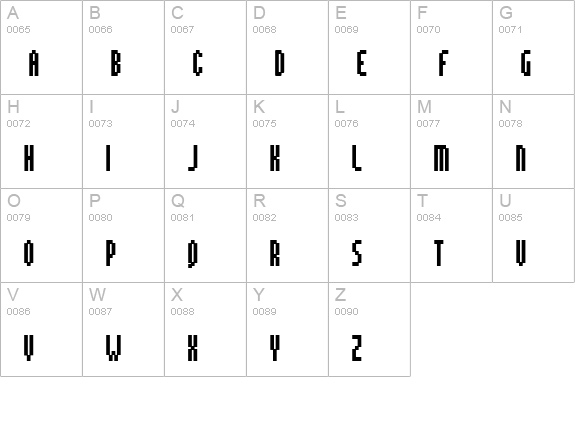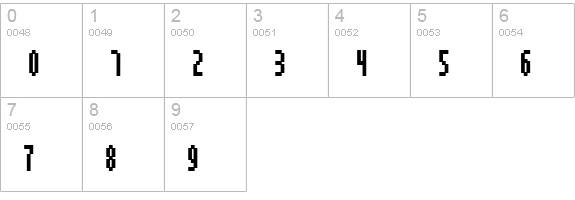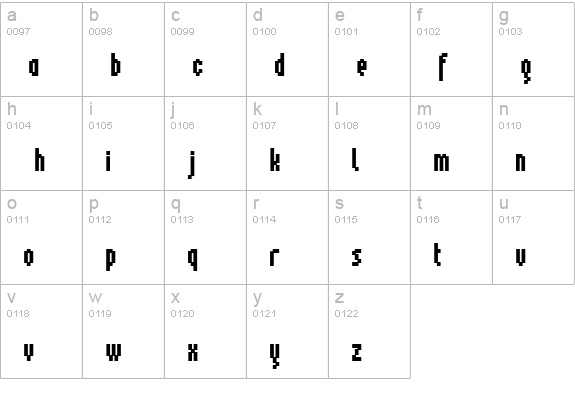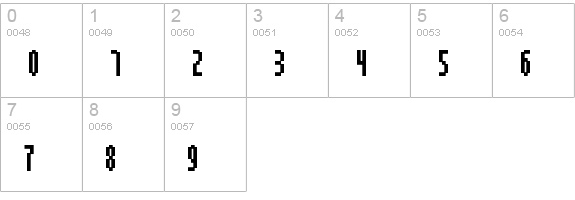
pinx Black Font Details
pinx Black is a maximum-weight, dramatic variant in the pinx typeface family \xE2\x80\x94 well suited to maximum-impact headlines, posters, and packaging.
Introducing pinx Black, a sleek and sophisticated font that combines modern aesthetics with timeless appeal. With its clean lines and bold letterforms, pinx Black exudes confidence and elegance, making it the perfect choice for a wide range of design projects. This versatile font is ideal for creating eye-catching headlines, striking logos, impactful posters, and much more. Its bold weight and distinctive style make a strong statement, capturing attention and leaving a lasting impression. But what sets pinx Black apart is not just its impeccable design; it's also the fact that it is freely available to download at FontsMarket.com. Yes, you heard it right - this remarkable font can be yours without any cost. Whether you're a professional designer or a creative enthusiast, pinx Black allows you to unleash your creativity, without breaking the bank. With pinx Black, you have the freedom to experiment and explore various design possibilities. Its versatility and timeless appeal make it a valuable asset in your design toolkit. Whether you're working on a branding project, a website, or a print advertisement, this font will elevate your work to new heights. So don't miss out on the opportunity to add pinx Black to your font collection. Head over to FontsMarket.com and download this remarkable font for free. Let your designs speak volumes with the bold and elegant pinx Black font.